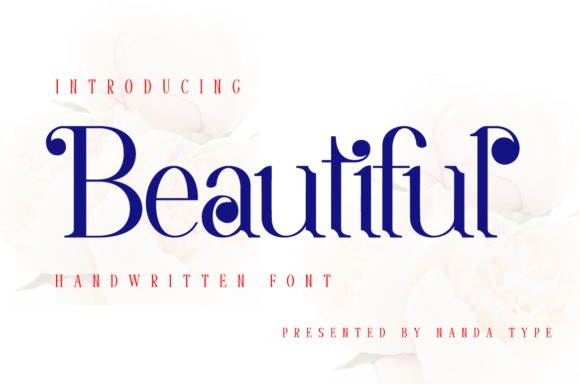
Beautiful Serif Font
Beautiful Serif Font – A modern serif font family with a unique and classy style. It looks amazing on any screen size and is easy to read in any text size. Beautiful is a display font created primarily for headlines, titles and other short text and is perfect for advertising, vintage moodboards, branding, logo types, packaging, titles, editorial designs, and modern and vintage designs.
This font will add a fun and friendly touch to any of your projects! This font is PUA encoded which means you can access all the glyphs and sweeps easily and more.